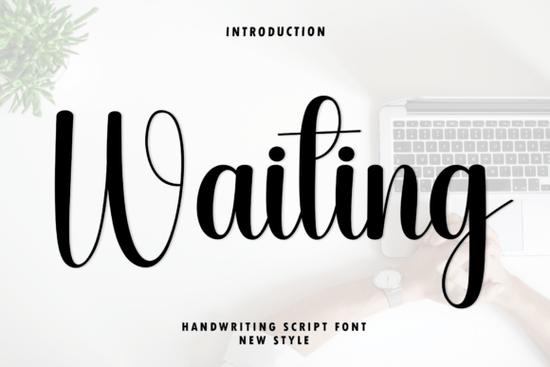
If you are looking for a script typeface that feels like a genuine signature but maintains a polished, professional edge, the Waiting Font is a strong choice. It captures a specific kind of modern elegance that is hard to find in standard handwriting fonts. Instead of looking messy or overly casual, it offers a fluid motion that suggests sophistication. This makes it an excellent tool for designers who need to add a touch of class to luxury branding or high-end editorial layouts without sacrificing readability.
What makes this script different from standard handwriting fonts?
The main difference lies in the balance of the letterforms. Many handwritten fonts lean too heavily into the "messy" aesthetic, with inconsistent baselines and erratic spacing. Waiting takes a different approach. It features tall ascenders and graceful, sweeping loops that create a rhythmic visual flow. This structure gives the text a sense of movement, as if it were written in one continuous, confident stroke.
For crafters and small business owners, this consistency is key. When you are printing wedding invitations or creating logo marks, you need a font that looks intentional. The delicate balance in this typeface ensures that even when scaled up for a large banner or scaled down for a business card, the loops and curves remain distinct and legible. It avoids the common pitfall where script fonts become illegible blobs at smaller sizes.
Where does this font shine in real projects?
This typeface is built for situations where "first impressions" matter most. Because of its signature-like motion, it is perfectly suited for luxury branding. Imagine a boutique perfume label or a high-end jewelry logo; this font adds that necessary layer of exclusivity. It tells the customer that the product is premium before they even read the description.
It is also a top contender for wedding stationery. The sweeping loops mimic the formal calligraphy often seen on save-the-dates and menu cards, but with a more contemporary twist. If you are a print-on-demand seller, this font works exceptionally well on products like tote bags, mugs, or wall art where a single inspirational word or a short phrase needs to stand out.
If you enjoy this style but want to explore similar vibes, you might look at Mother's Plate, which offers a slightly more vintage, retro feel while maintaining that handwritten charm. Alternatively, for something a bit more casual and breezy, Summer Ballpoint provides a relaxed alternative that still keeps the personal touch.
How do you pair it with other typefaces?
Script fonts can be tricky to pair because they are so expressive on their own. The golden rule here is contrast. Since Waiting is fluid and curvy, it needs a partner that is stable and structured. A clean, geometric sans-serif is usually the safest bet. This allows the script to be the "hero" of the design while the sans-serif handles the heavy lifting of body text or secondary information.
You can also pair it with a classic serif font if you want to lean into the luxury aesthetic. A sharp, high-contrast serif can complement the sweeping loops of the script beautifully. For example, if you are building a brand identity, you might use this script for the logo and a font like Smithson (or a similar structured serif) for the tagline to create a sophisticated hierarchy.
For those who prefer a bolder, more playful combination, mixing this elegant script with a chunky, modern display font can create an interesting tension. It stops the design from feeling too stiff or formal. If you are experimenting with pairings, The Lumia is another script option that often pairs well with bold sans-serifs, giving you a good reference point for how to balance weight and style in your layouts.
Is it right for your specific brand voice?
Before downloading, consider the emotion you want to convey. This font speaks the language of grace and sophistication. If your brand is loud, aggressive, or strictly utilitarian, this might not be the right fit. However, if your business revolves around wellness, beauty, lifestyle, or artisanal goods, it aligns perfectly with those values.
It is also worth noting how it handles capital letters. In many signature fonts, the capitals are where the personality truly shines. Waiting features exaggerated swashes on the capitals that can act as decorative elements on their own. This is useful for monograms or initials on packaging.
If you find that this font is slightly too formal for your needs, you might prefer something with a bit more bounce and energy. Hey Darling is a great alternative that offers a friendlier, more approachable handwriting style while still maintaining a professional quality.
Quick Checklist for Using Script Fonts
- Check Legibility: Always test your text at the actual size it will be printed or displayed. If the loops touch or the letters blur, increase the tracking (letter-spacing) slightly.
- Limit Usage: Use script fonts for headlines, logos, or short accents. Avoid using them for long paragraphs of body text, as they can be tiring to read.
- Contrast is Key: Ensure there is enough color contrast between the text and the background. Light gray script on a white background will disappear.
- Pair Wisely: Stick to simple, neutral fonts for the rest of your design to let the script stand out.
When you are ready to start your project, remember that the right font does half the work for you. By choosing a typeface with built-in elegance, you save time on decoration and let the typography do the talking.